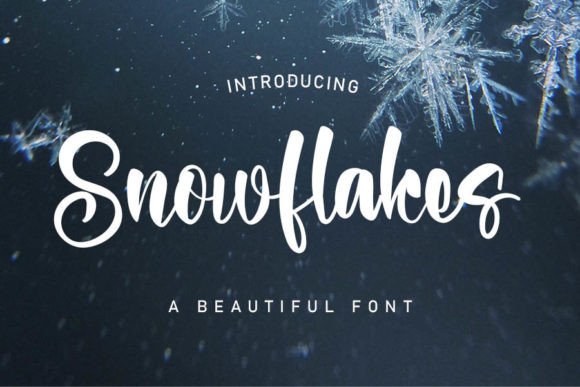
Are you looking for the perfect font to add a touch of charm to your Christmas projects? Look no further than Snowflakes Font from Snowman Studio!
This enchanting handwritten font is the Best Font For Christmas Sign, with its romantic and whimsical script style. Whether you're creating greeting cards, holiday flyers, or social media posts, Snowflakes Font is the perfect choice to convey a warm and inviting feel.
With its wide spectrum of applications, Snowflakes Font is a versatile addition to your font library. Use it for headlines, captions, or any text you want to stand out in a stylish and unique way. The delicate curls and loops of Snowflakes Font add a touch of elegance to any design, making it perfect for everything from wedding invitations to blog post titles.
Created by Snowman Studio, Snowflakes Font is the ultimate choice for anyone who wants to add a touch of whimsy and romance to their Christmas projects. Its expressive and distinctive style will capture the attention of your audience and make your message truly unforgettable.